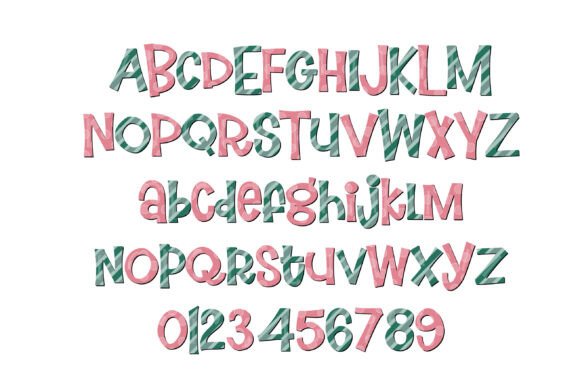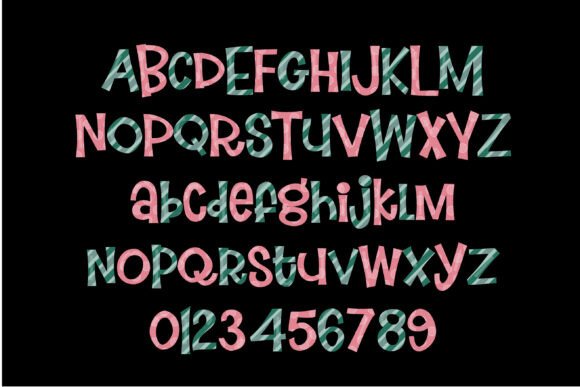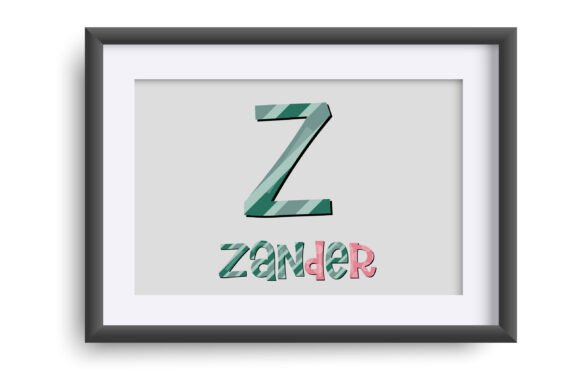
Jolly Joy Font
This full-color font features an interlocking sans serif in a pink/green holiday color palette. There is an alt version you can access through your system’s character map that contains additional colors of all the letters. This font works best for titles, displays, posters and more. Please note color fonts will show as black in non compatible programs. This font type is compatible with Silhouette Studio.OpenType full-color (SVG) fonts are installed like any normal .otf font is installed. This usually happens via FontBook for Mac users or via your preferred font manager or Control Panel in Windows. Please note color fonts will show as black in non-compatible programs. They often show as black when choosing the font in the preview window in programs that support color fonts. You will know if your program can support color fonts when you type on the document and see them in color. Adobe products, Silhouette Studio, Quark, and Inkscape, amongst others, support full-color SVG fonts at this time.Full-color SVG fonts are the perfect way to add a touch of personality to your designs. With a full range of colors and styles to choose from, you can create anything from simple text logos to complex illustrations. Plus, SVG fonts are vector-based, so they can be scaled to any size without losing quality.